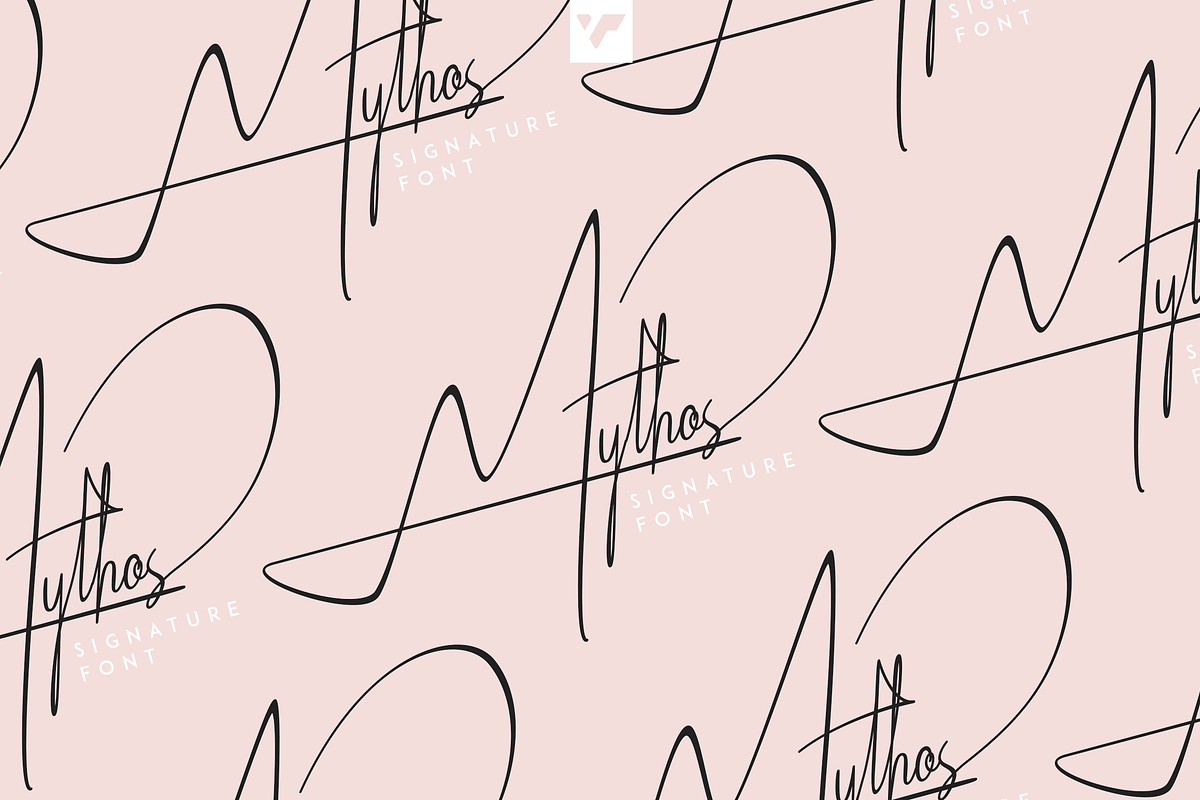
Mythos - organic signature font Free Download
Mythos - Organic Signature Font Free Download
Mythos - Organic Signature Font Free Download is a beautifully crafted script typeface that combines the elegance of handwritten lettering with a natural, organic feel. Perfect for logos, invitations, branding, and more, Mythos brings a unique, personal touch to your designs. Its fluid strokes and natural curves give it an authentic, signature-like appearance, making it ideal for projects that require a handcrafted, artistic vibe.